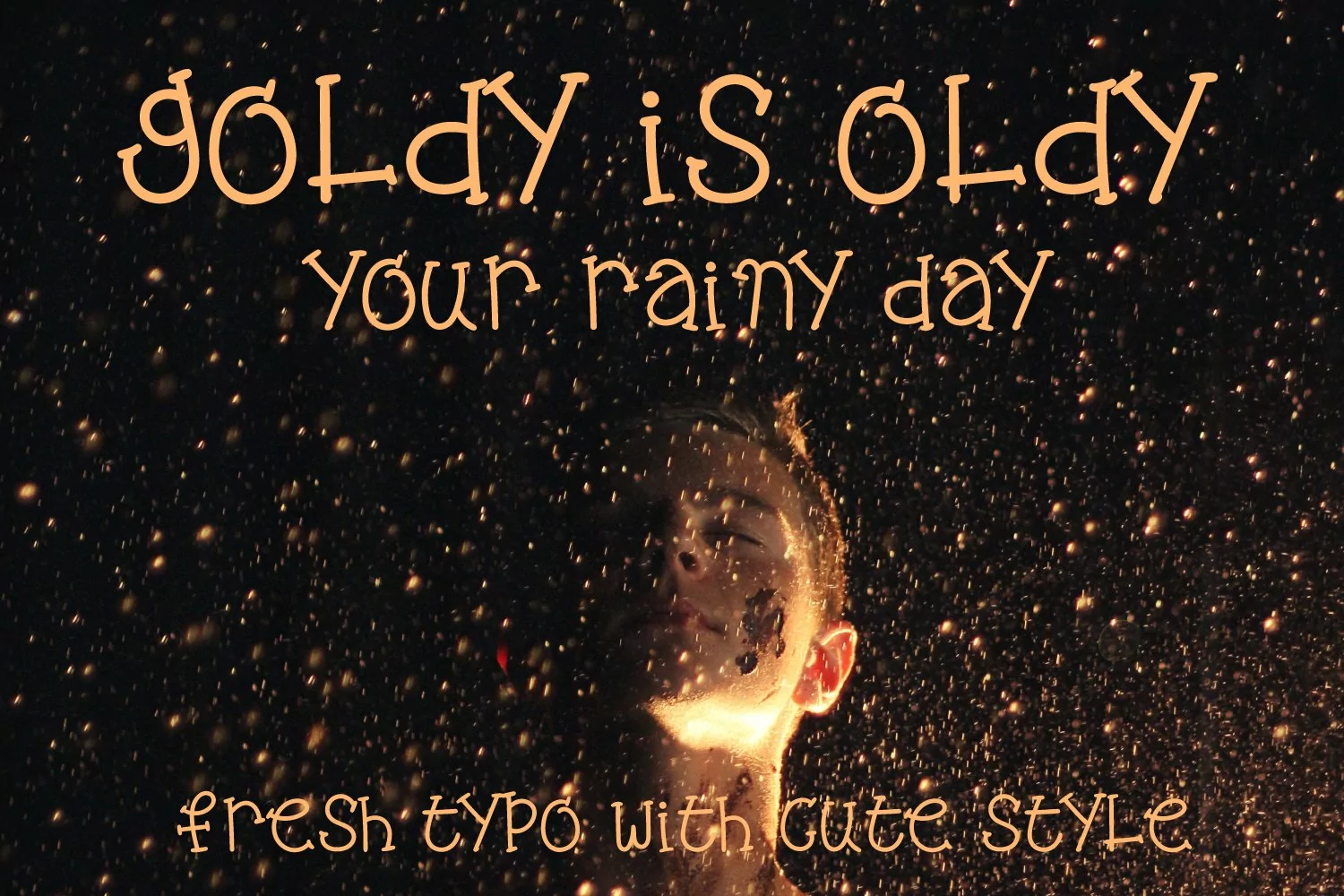
Looking for a Classic combination of hand drawn and cute font? well, this is specially designed for you. With all alphabets caps letter and lowercase including 0 to 9 number. If you want to gift someone with special writing use this.